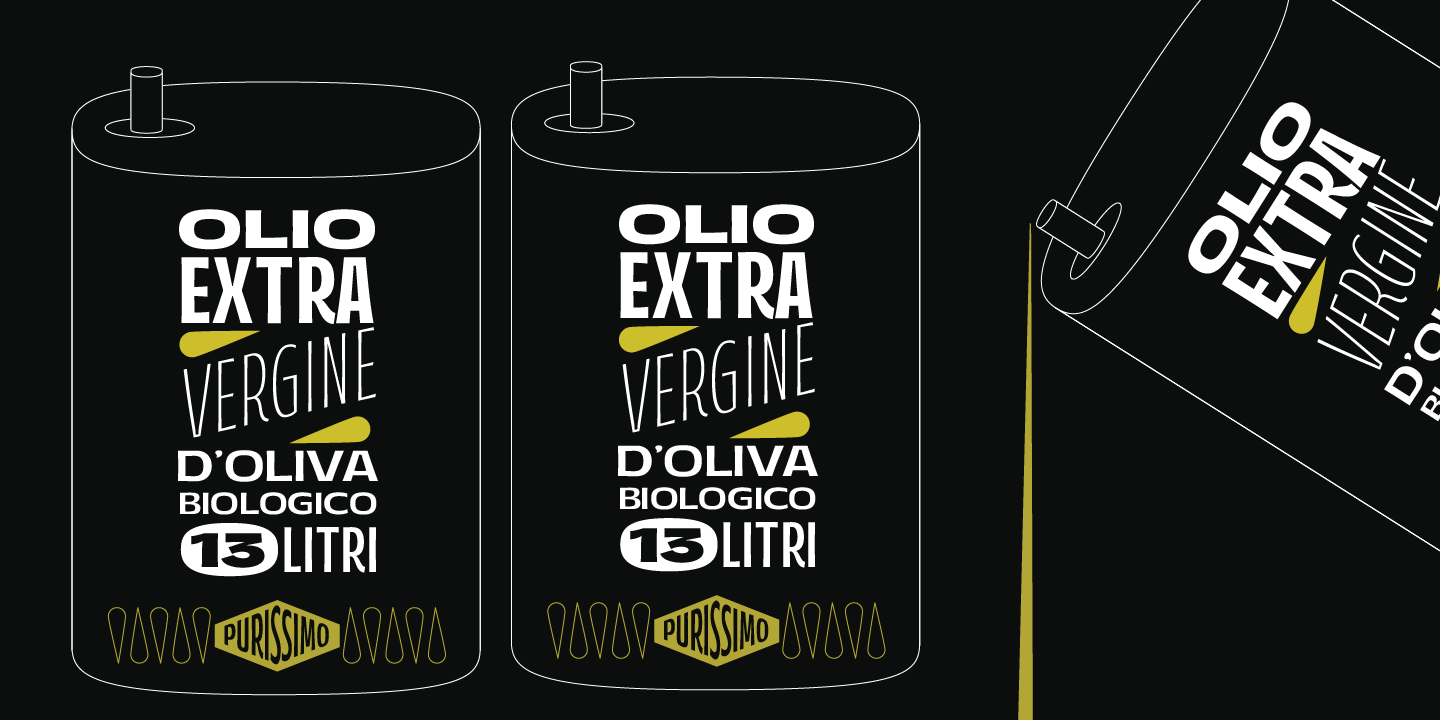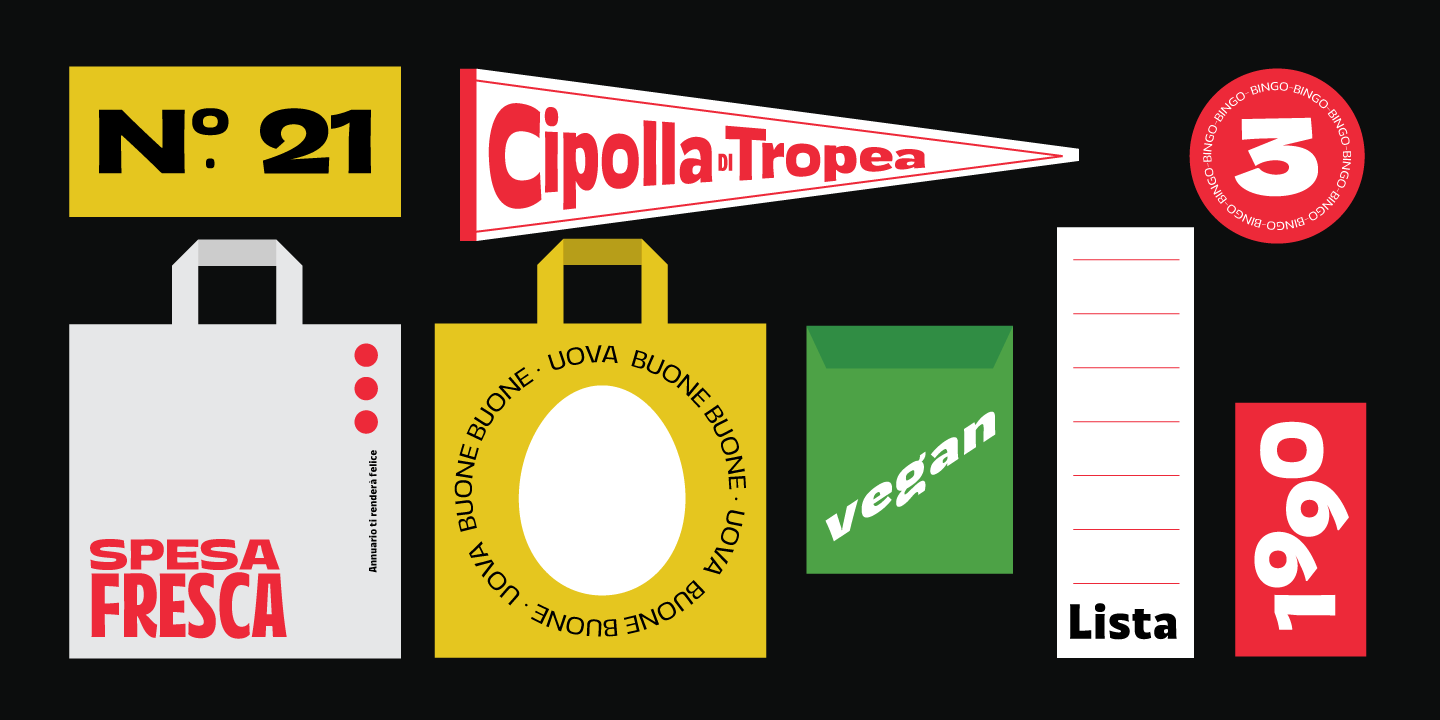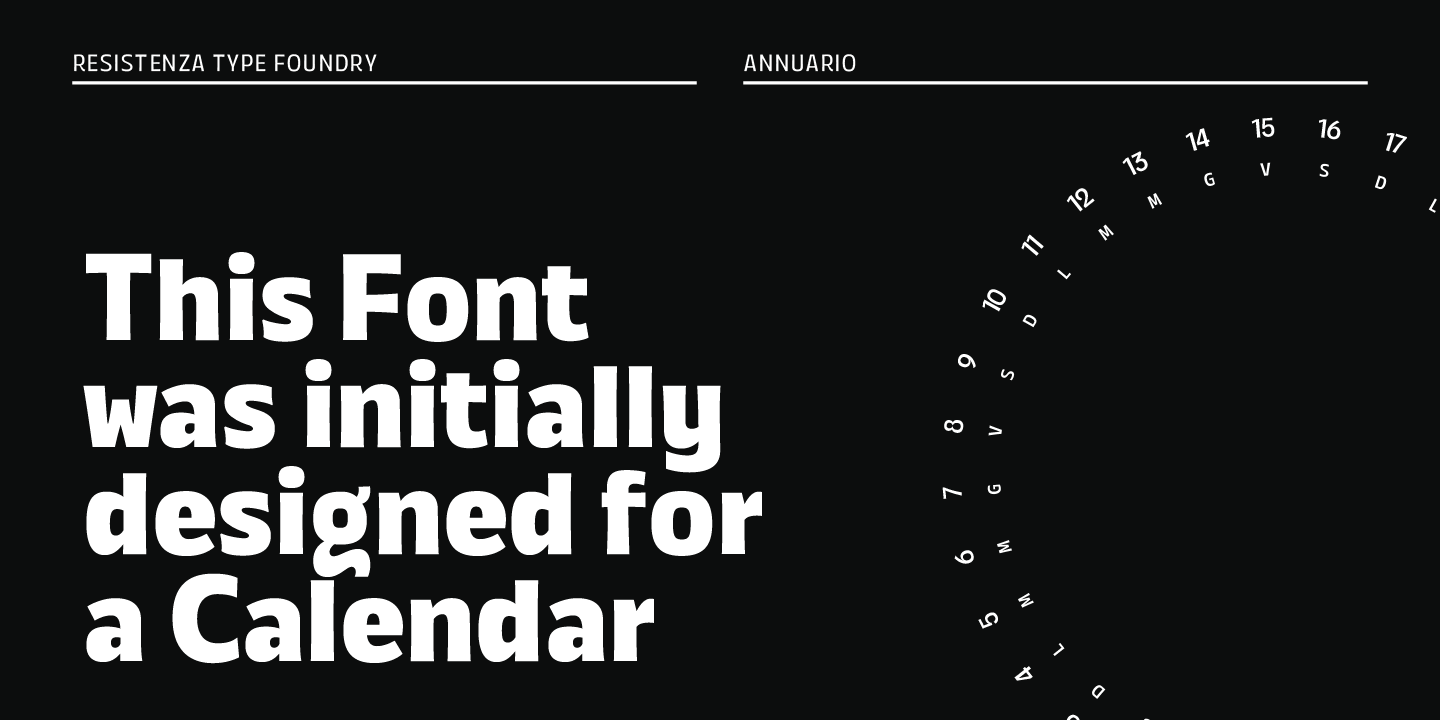
About Annuario
Annuario is a versatile, modern sans serif multi-weight font family initially designed for a calendar. 48 fonts with 2 axes, a flexible family for many purposes.